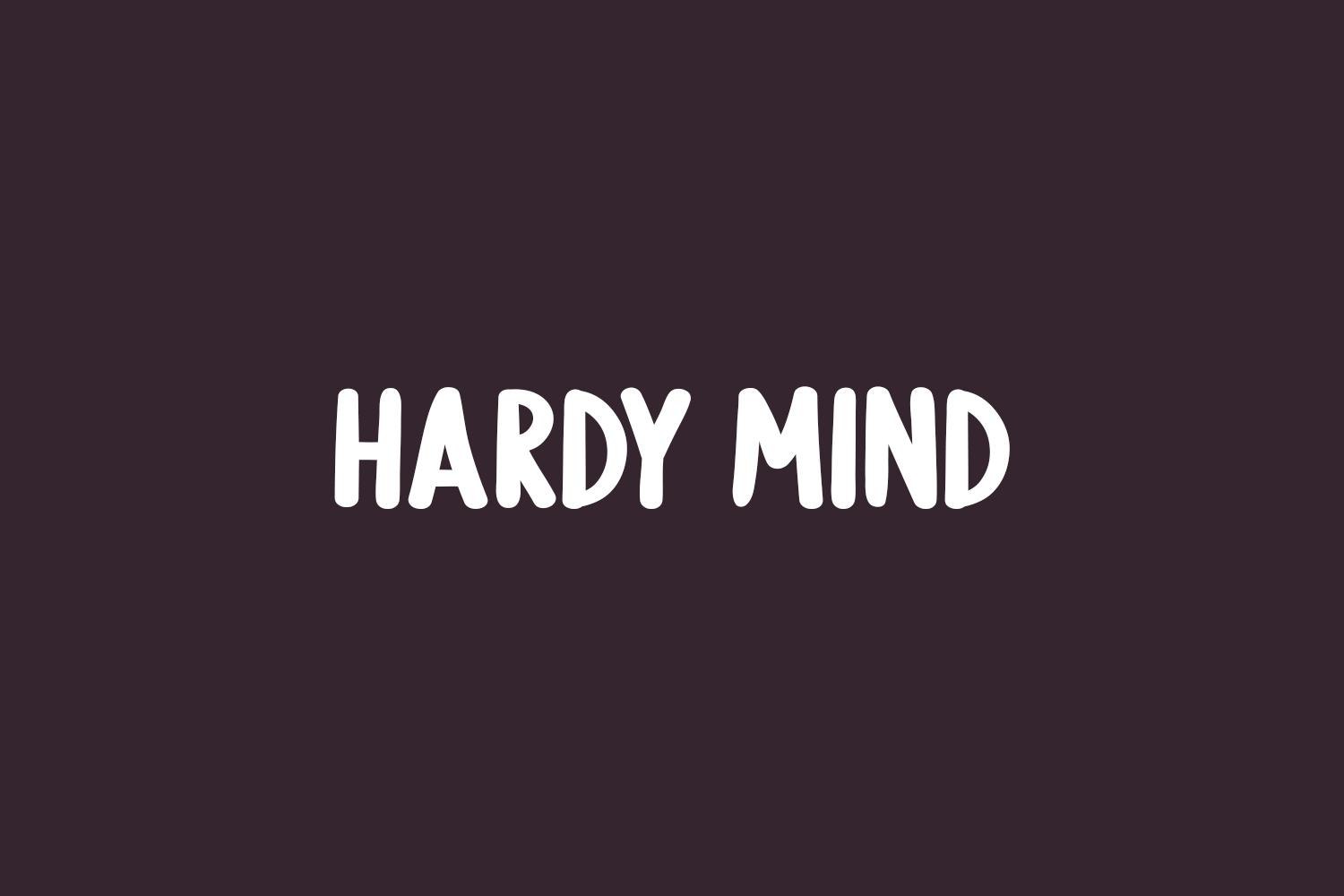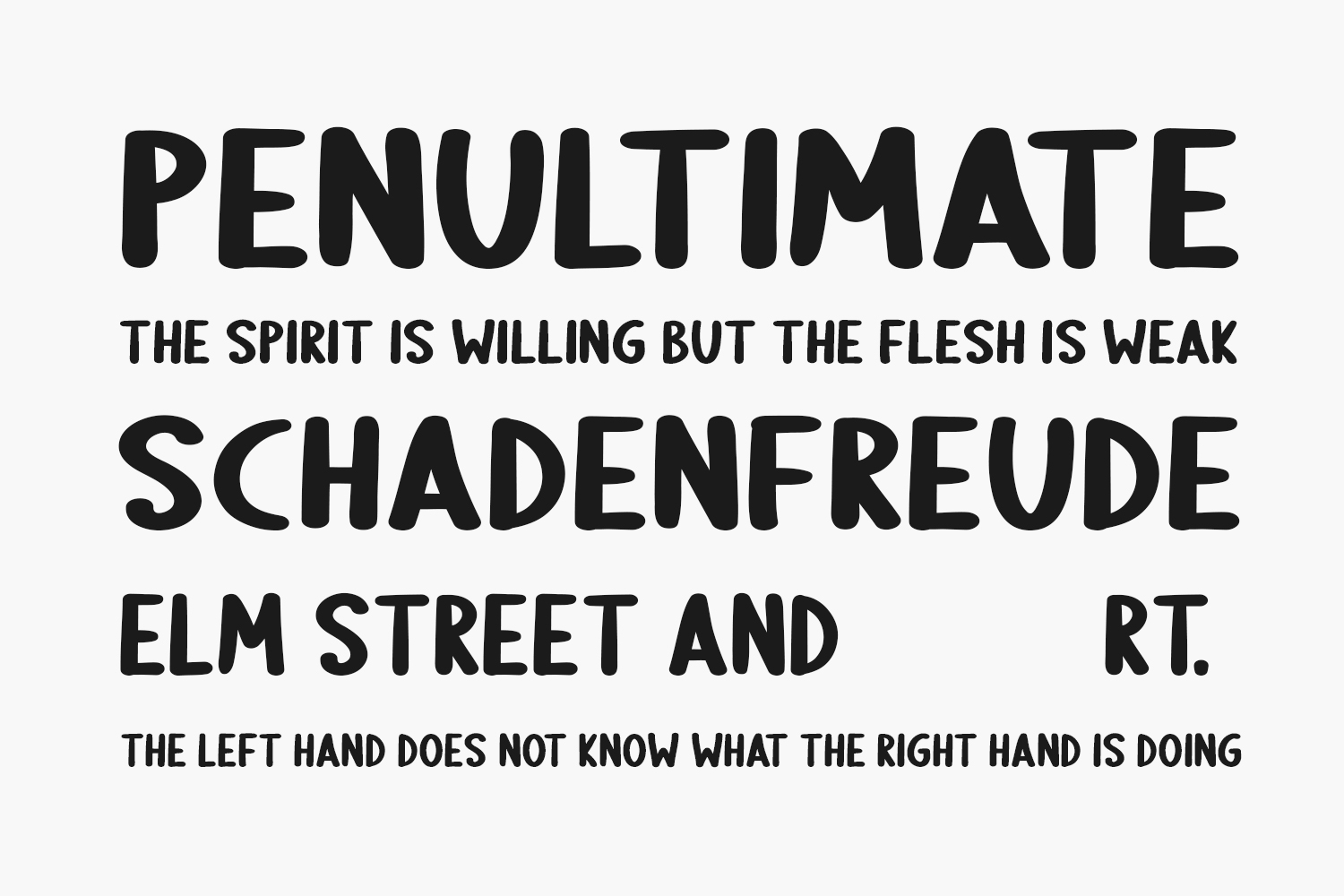
Hardy Mind Free Font is a simple, organic, and bold display font. Simple but with a strong visual effect, this font will instantly make your creation more appealing than any others. Hardy Mind Free Font was designed by Md Shohail Bhuian is a demo and free for personal use only. Please purchase the full version for commercial use.